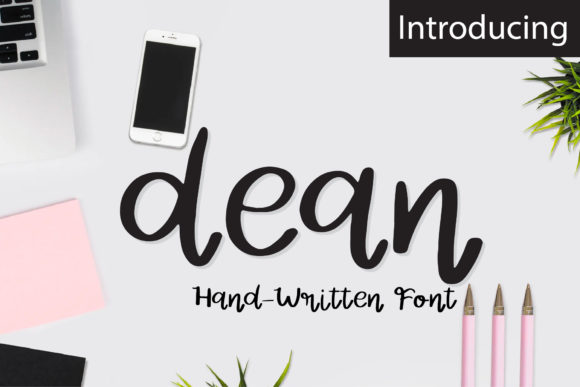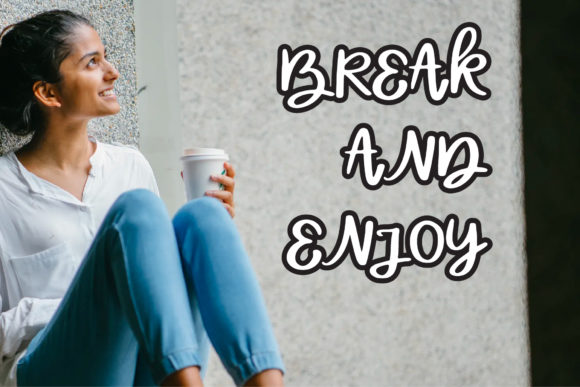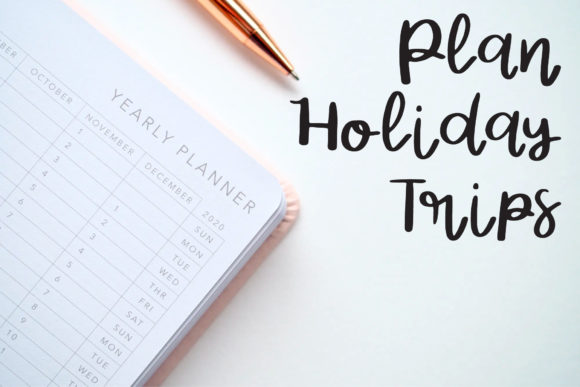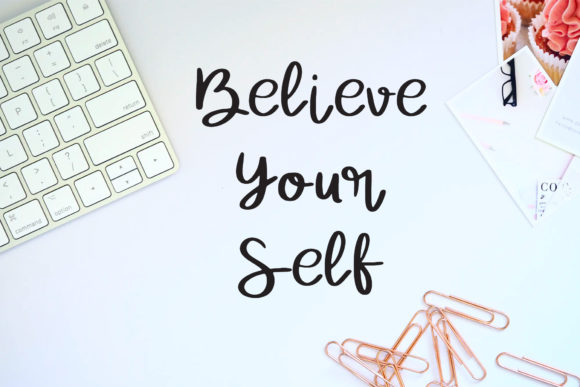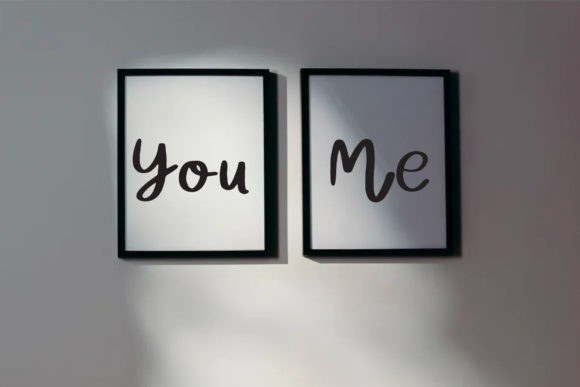
Dean Font
About Dean Font
Dean is a sweet and round lettered handwritten font. Fall in love with its incredibly versatile style and use it to create spectacular designs!